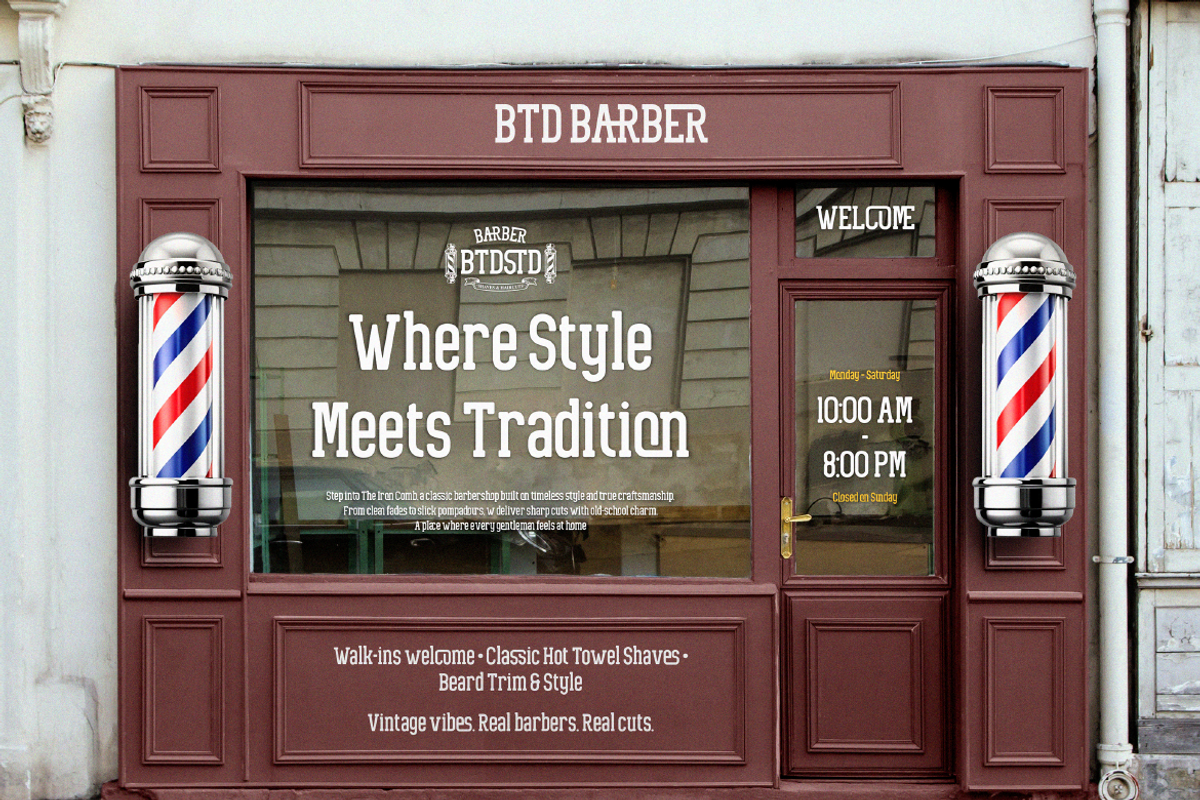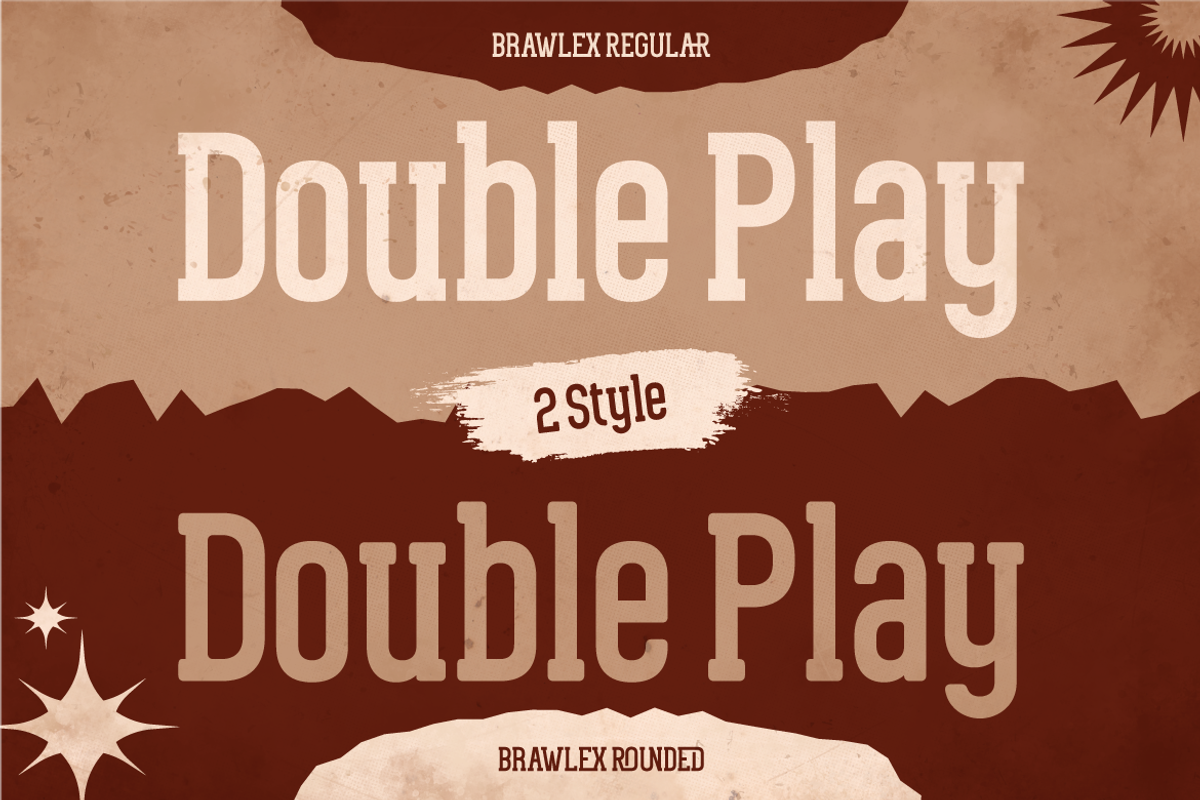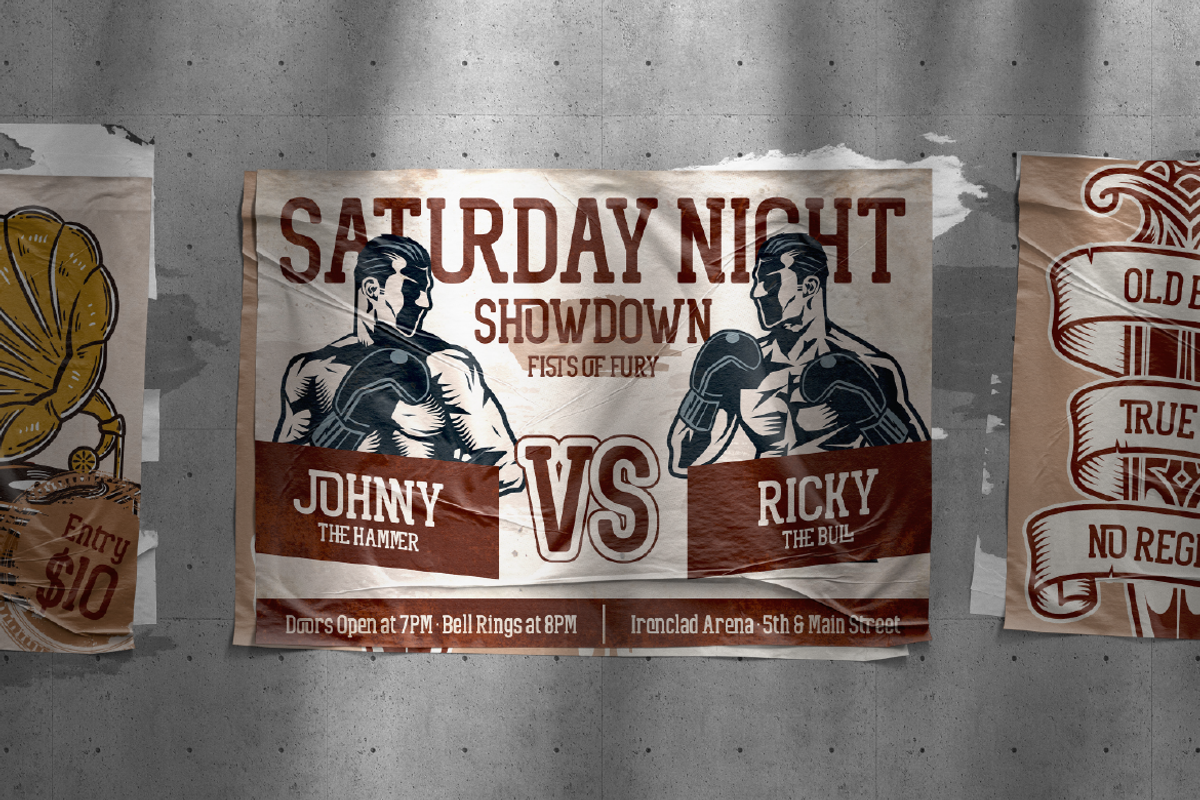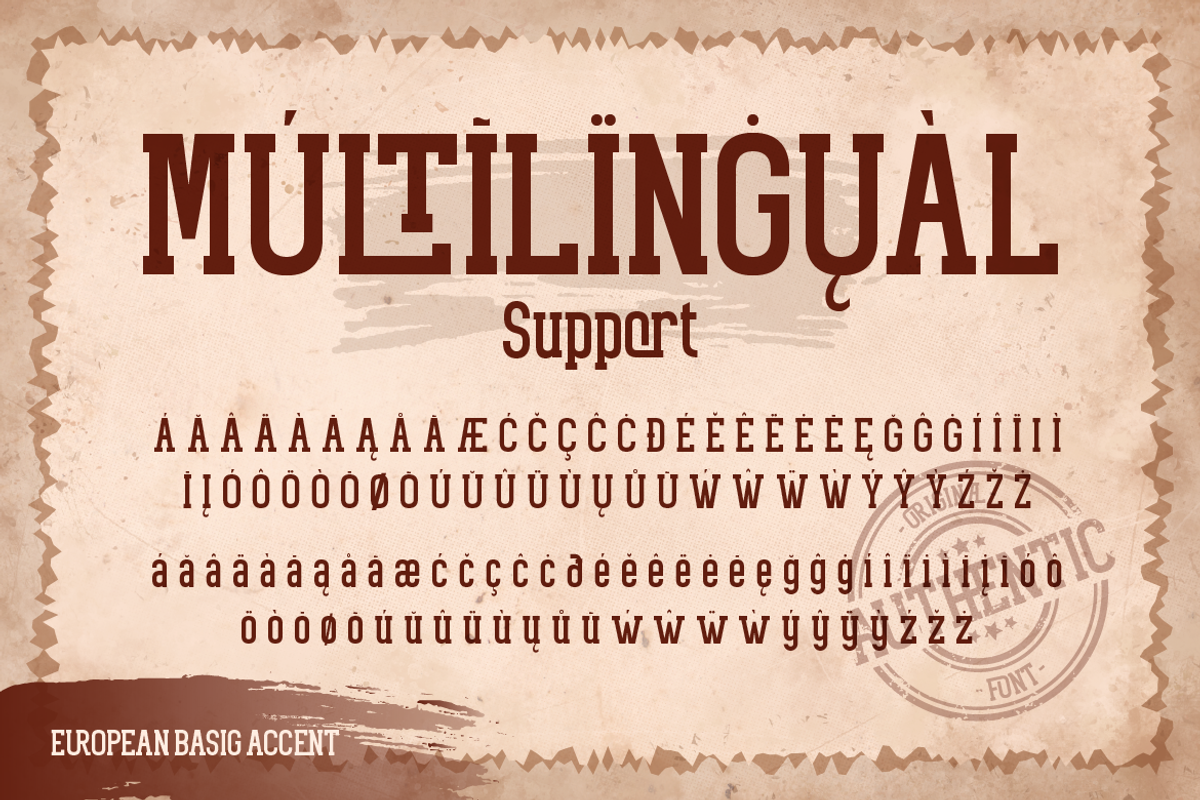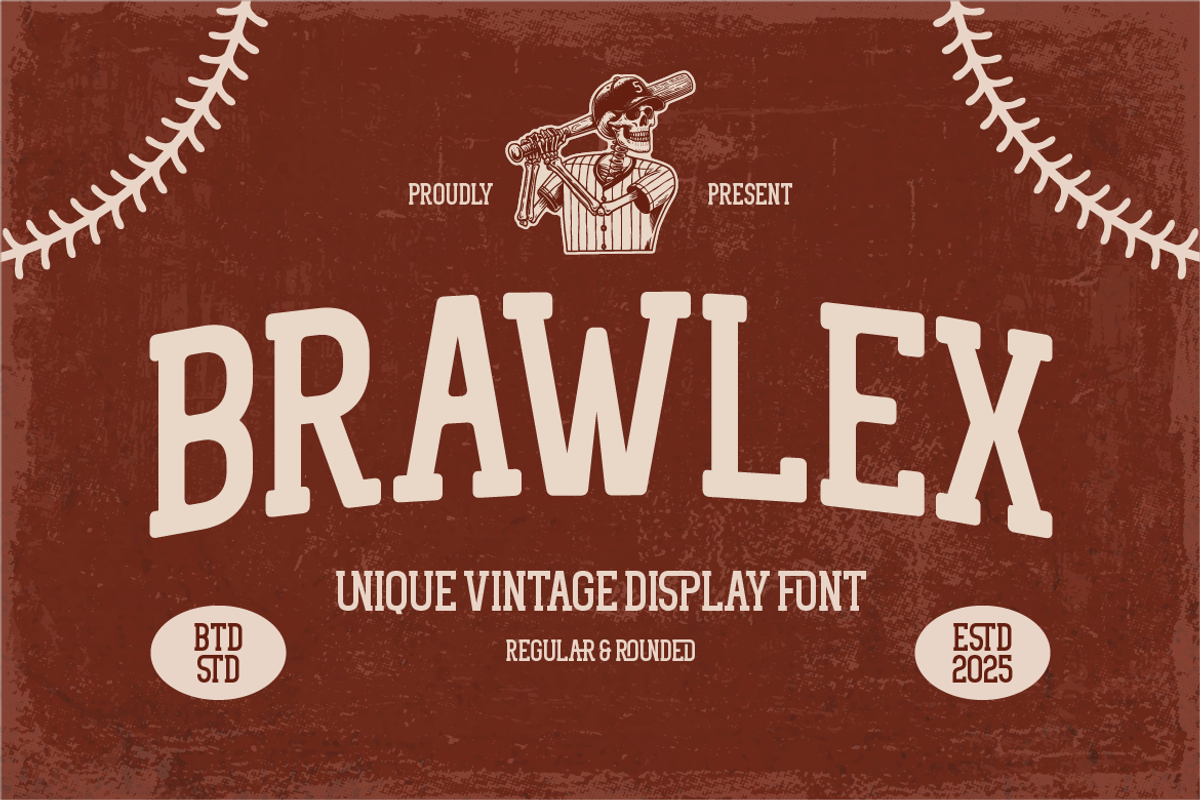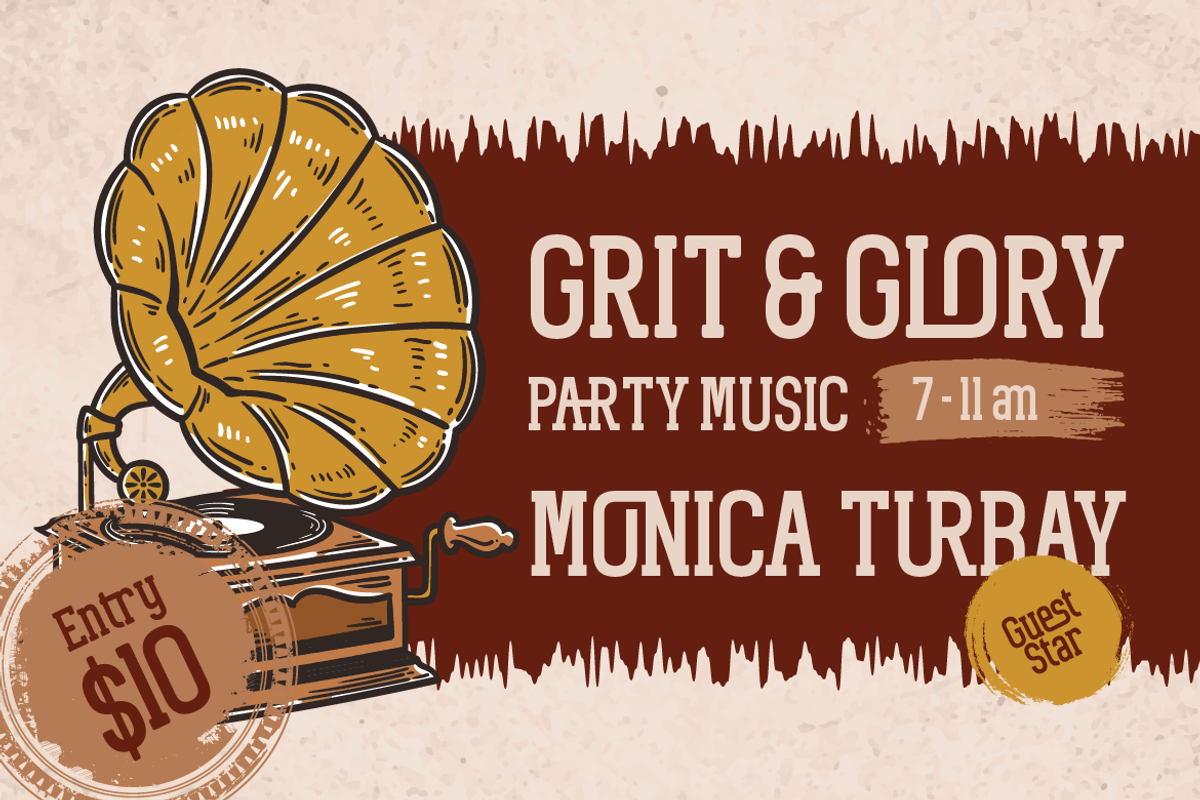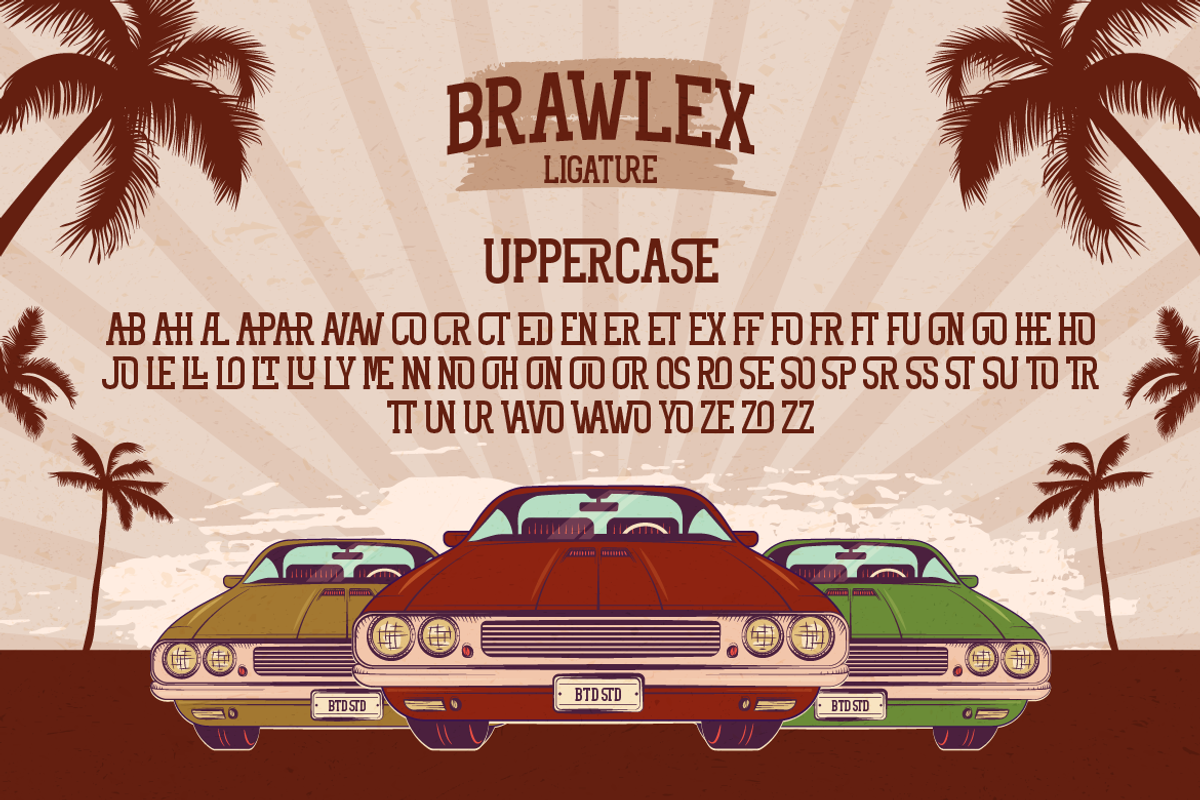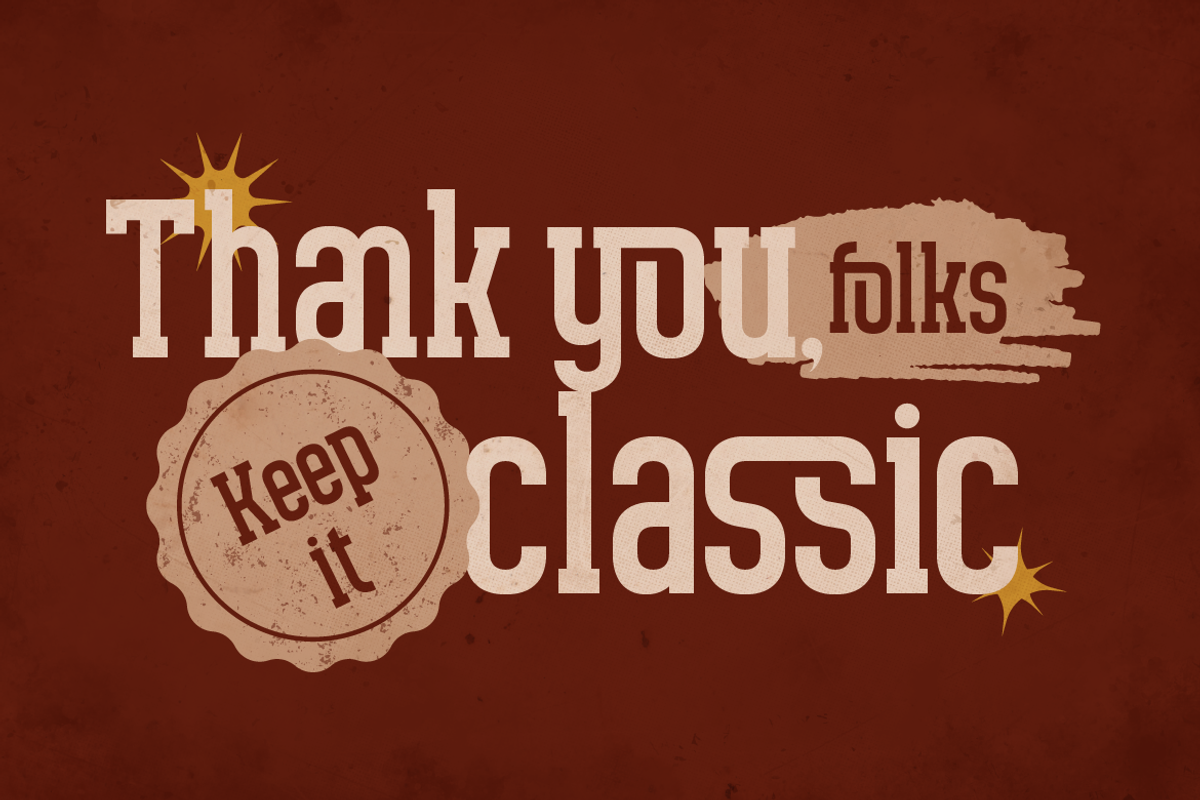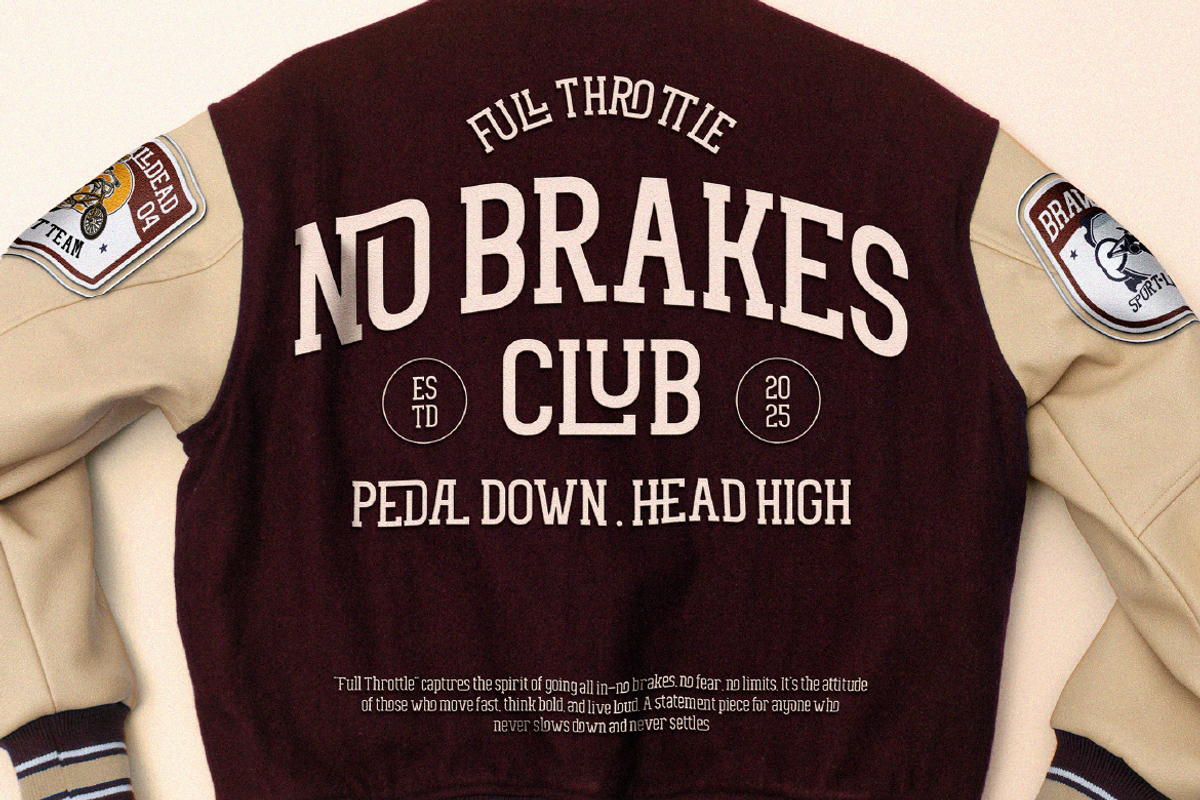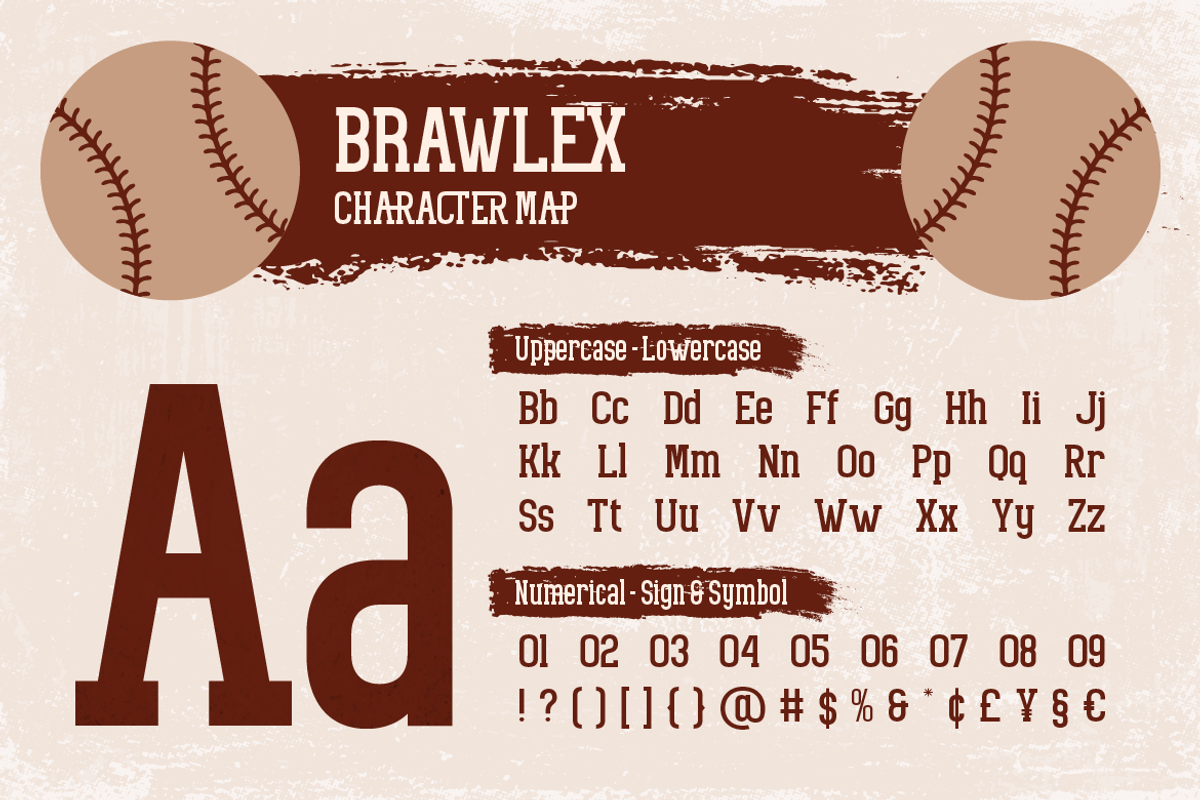
Brawlex
Introducing Brawlex, a bold display font with two styles. Inspired by varsity aesthetics, vintage poster, western signage and retro sport flair. Brawlex is a bold and confident typeface designed to stand out. Comes with Regular and Rounded style, make it easy to adapt to various design needs - from vintage logos design, retro posters and classic signage, to labels and product packaging. Brawlex also works great for social media graphics, music event flyers, or any design that need strong visual impact and a nostalgia touch.